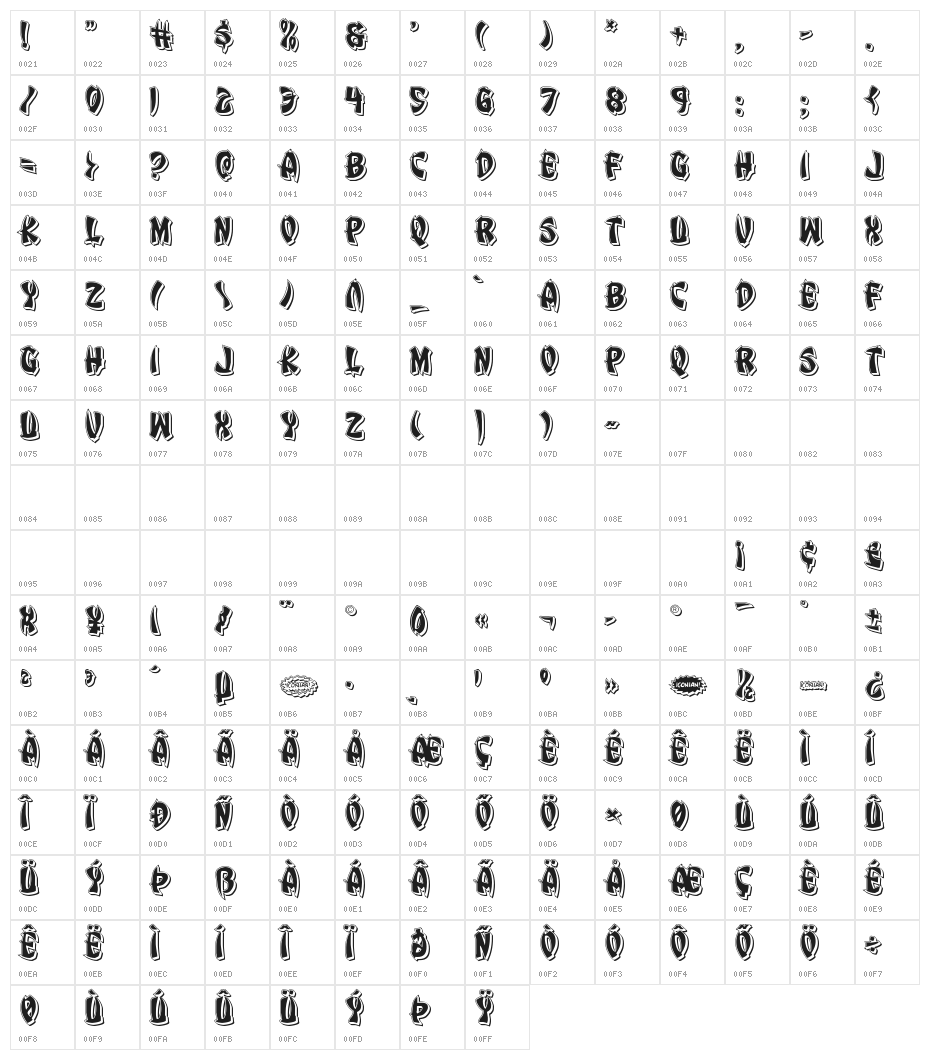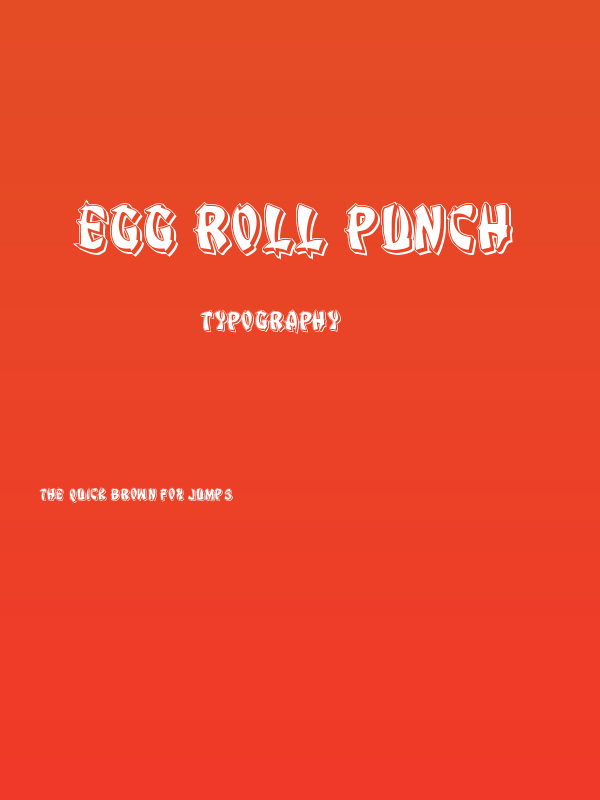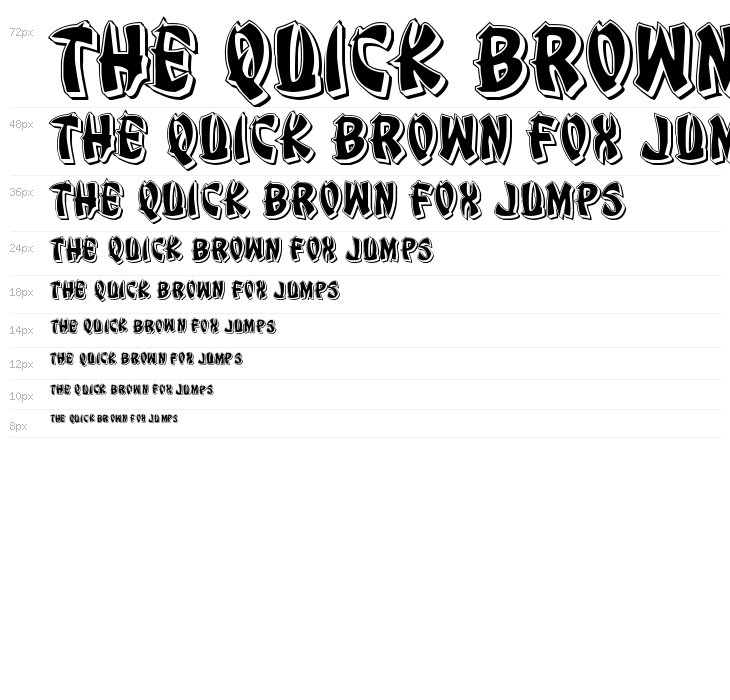
Egg Roll Punch Font
Egg Roll Punch Description
This font features a bold, graffiti-inspired style with a strong urban influence. The characters are outlined with a thick black shadow, giving them a three-dimensional appearance. Each letter has a dynamic and energetic form, with sharp angles and exaggerated curves that create a sense of movement. The font is highly decorative, making it ideal for eye-catching designs. Its playful and rebellious aesthetic is perfect for projects that require a bold statement. The numbers and special characters maintain the same stylistic elements, ensuring consistency across all text elements.
| Overall Style | Urban, Graffiti, Energetic |
| Proposed Projects | Ideal for street art designs, music album covers, urban-themed posters, and event flyers. |